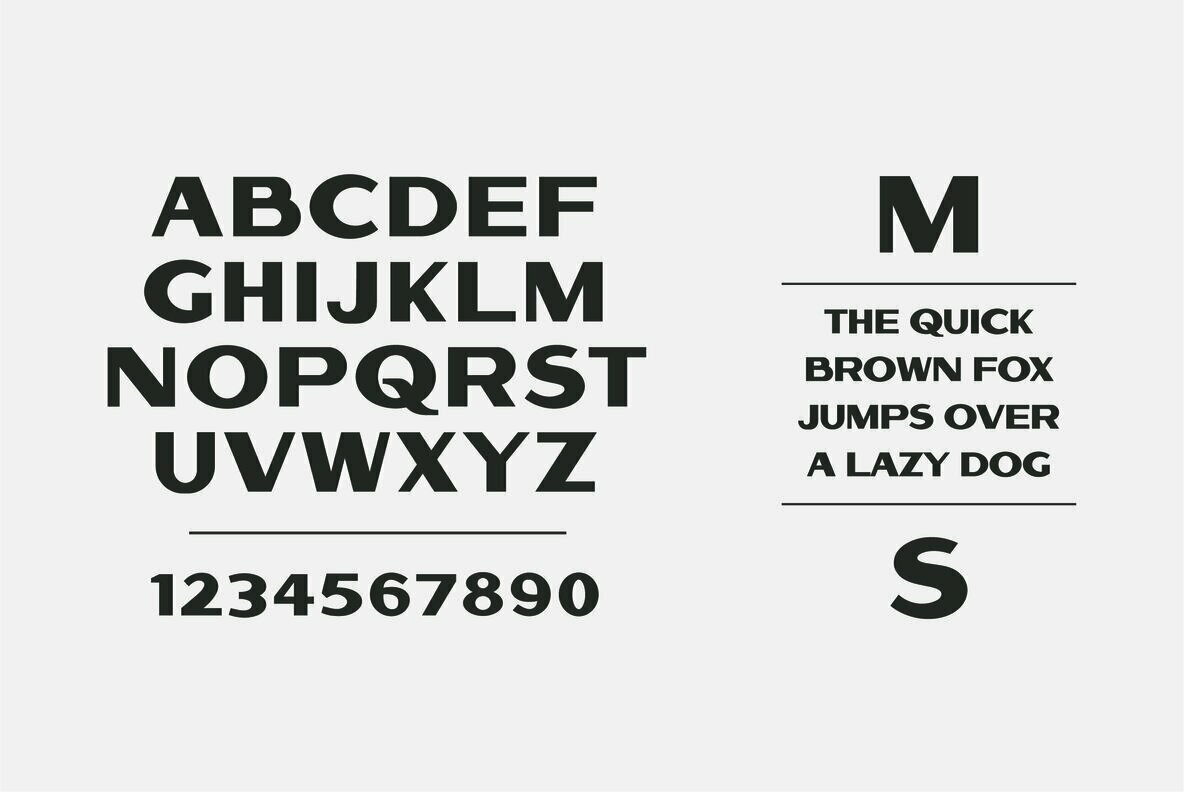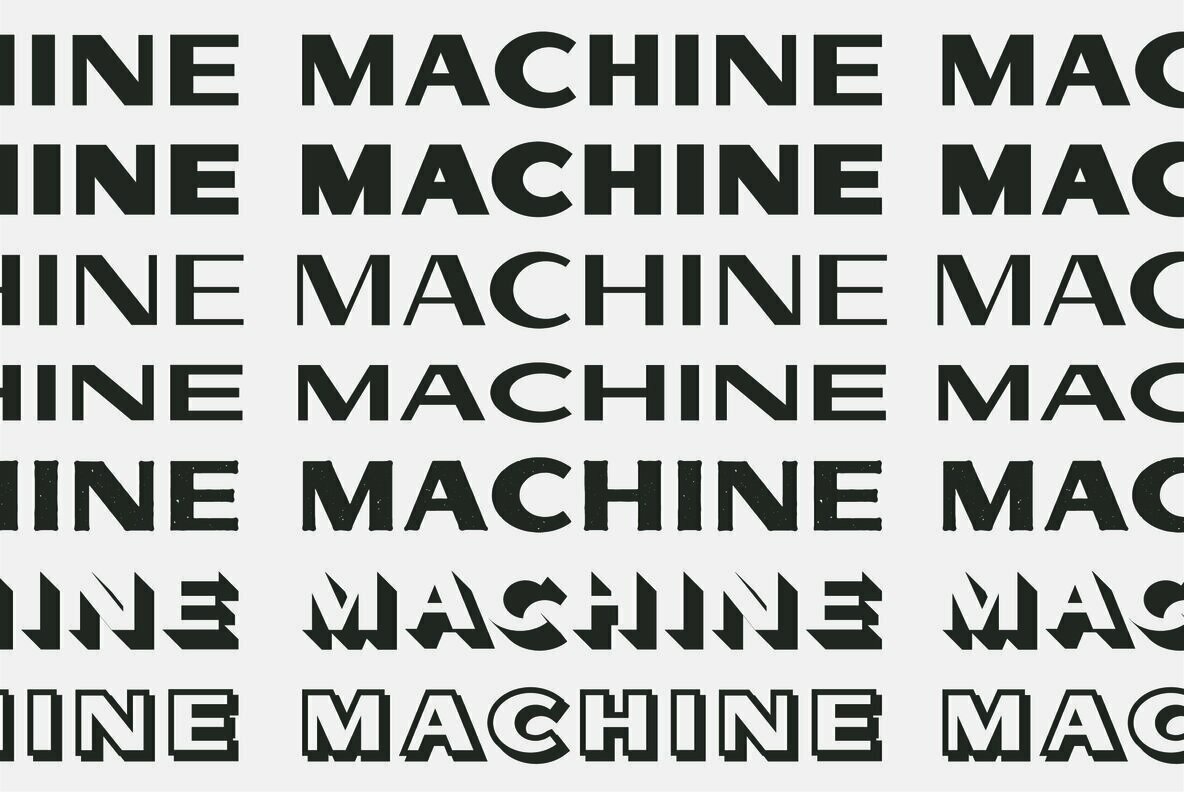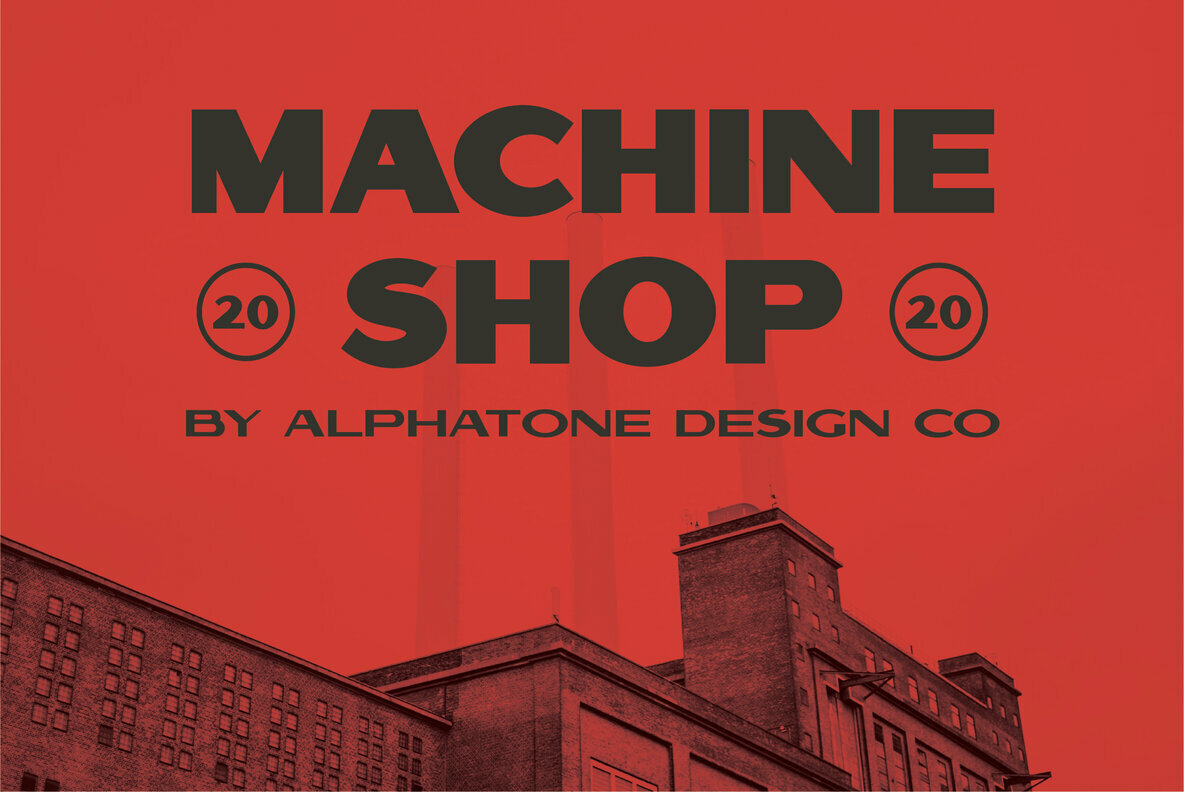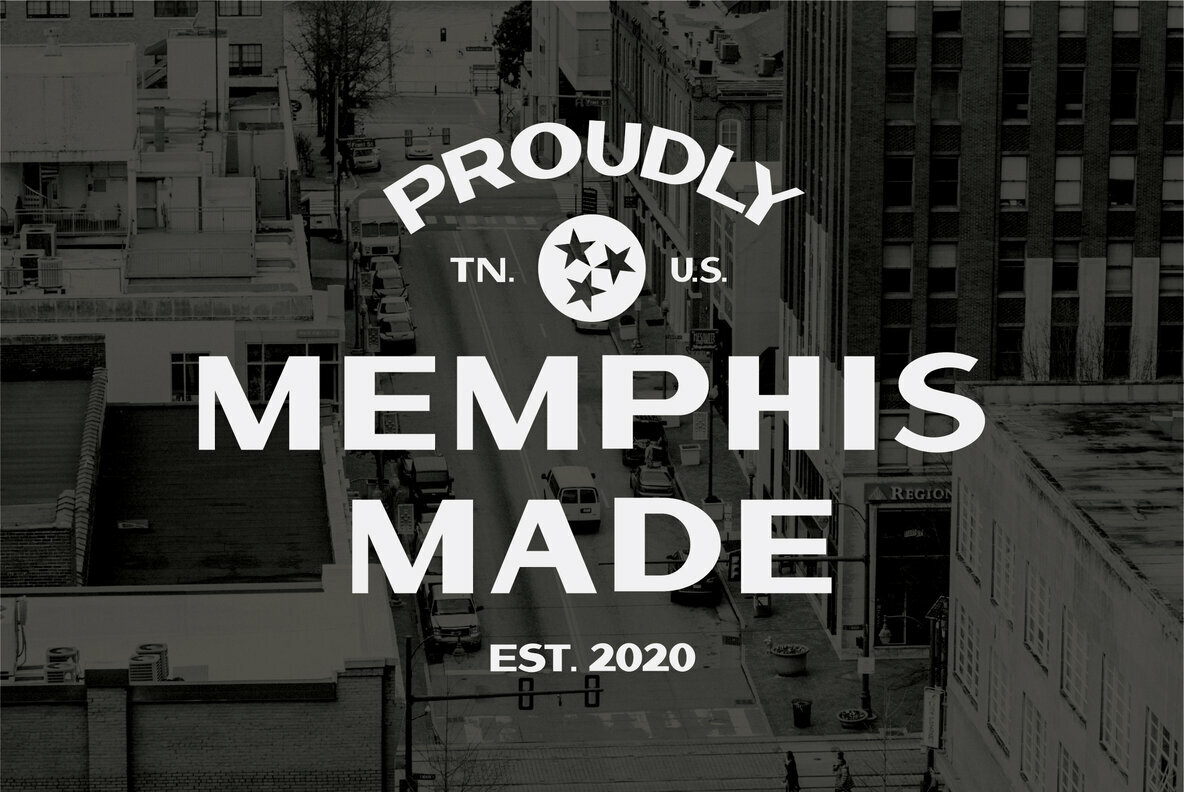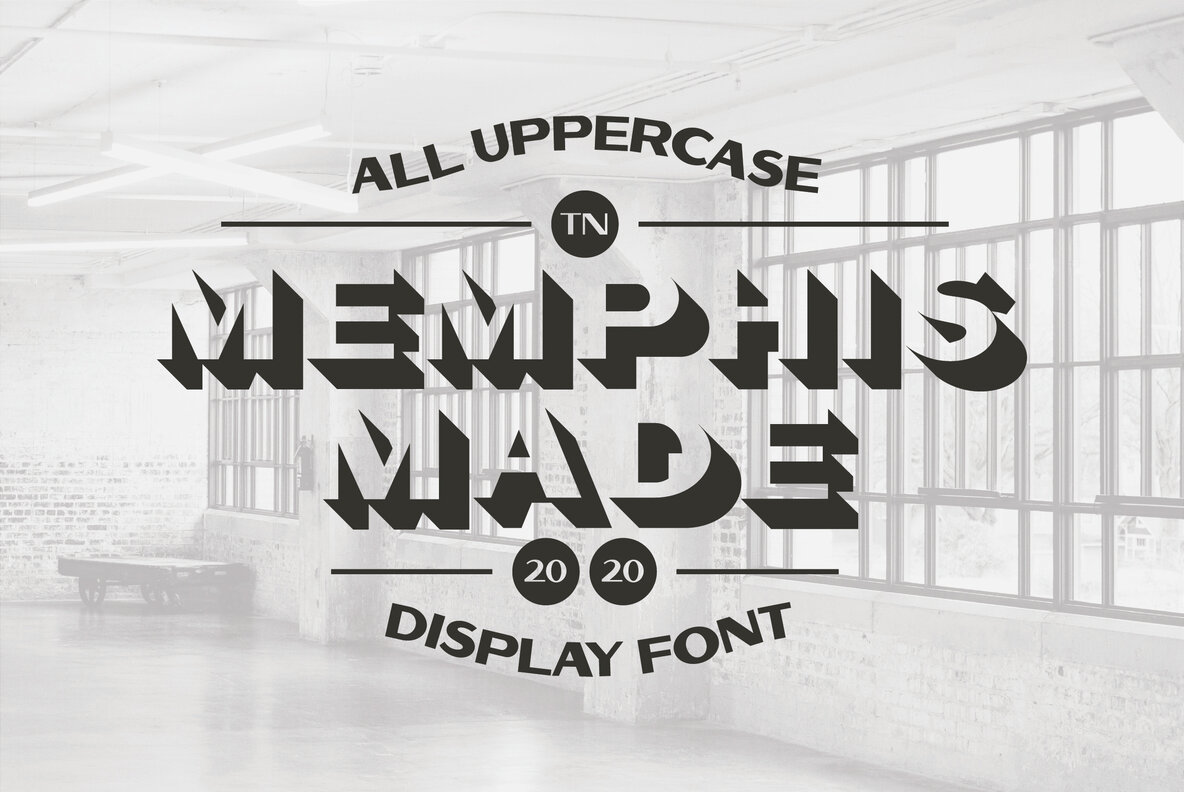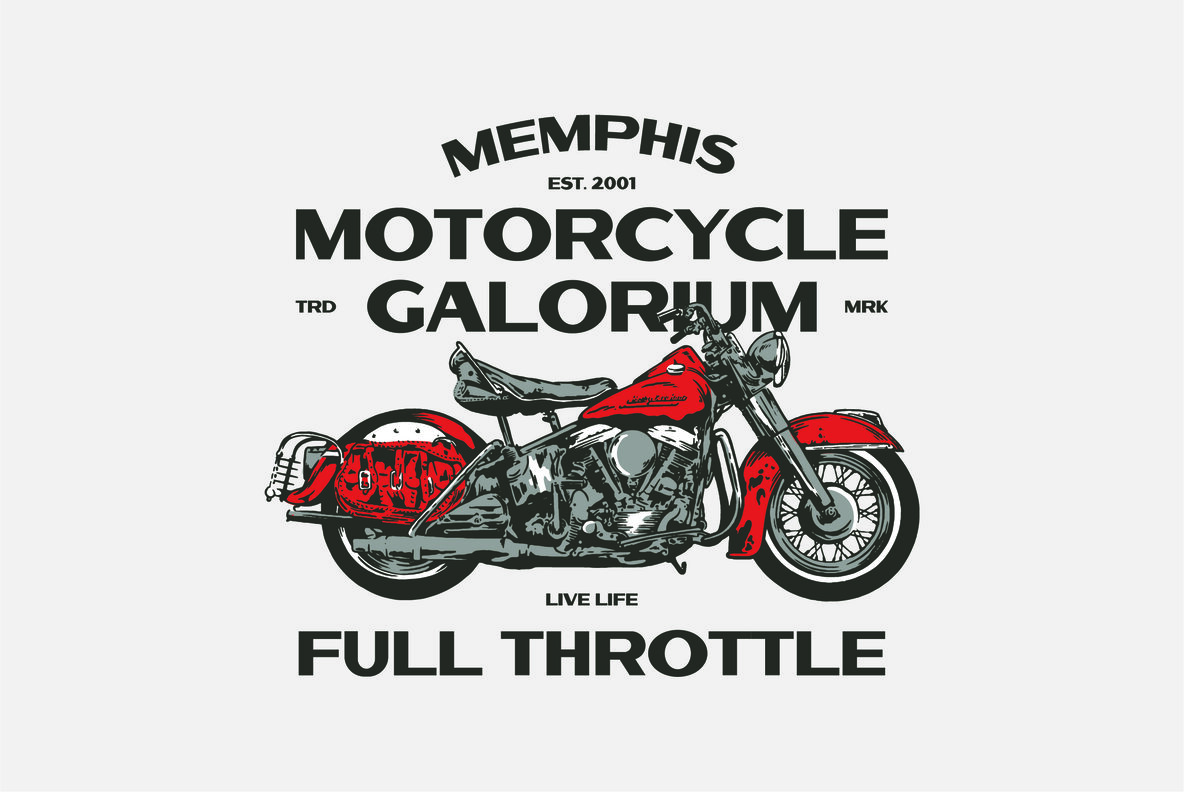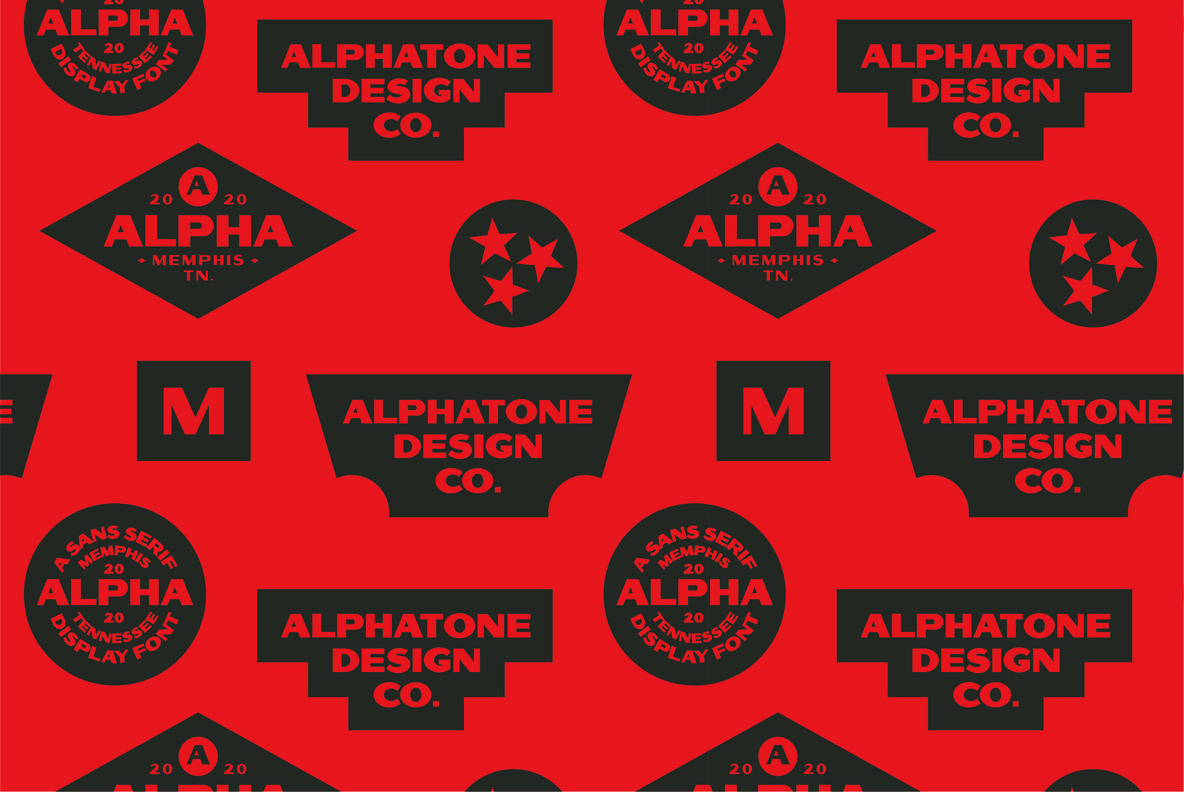
Machine Shop Font
Machine Shop Light
Machine Shop Regular
Machine Shop Bold
Machine Shop 3D
Machine Shop Distressed
Machine Shop Offset
Machine Shop Wide
Machine Shop is an all caps display font inspired by the vintage, hand-painted, machine shop signs in downtown Memphis, Tennessee. This industrious yet charming font is perfect for print or digital designs.